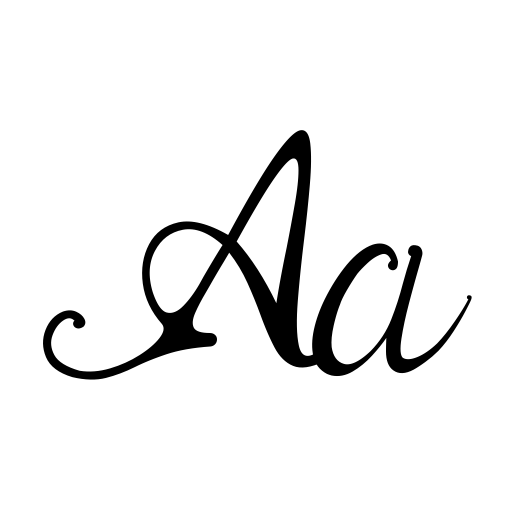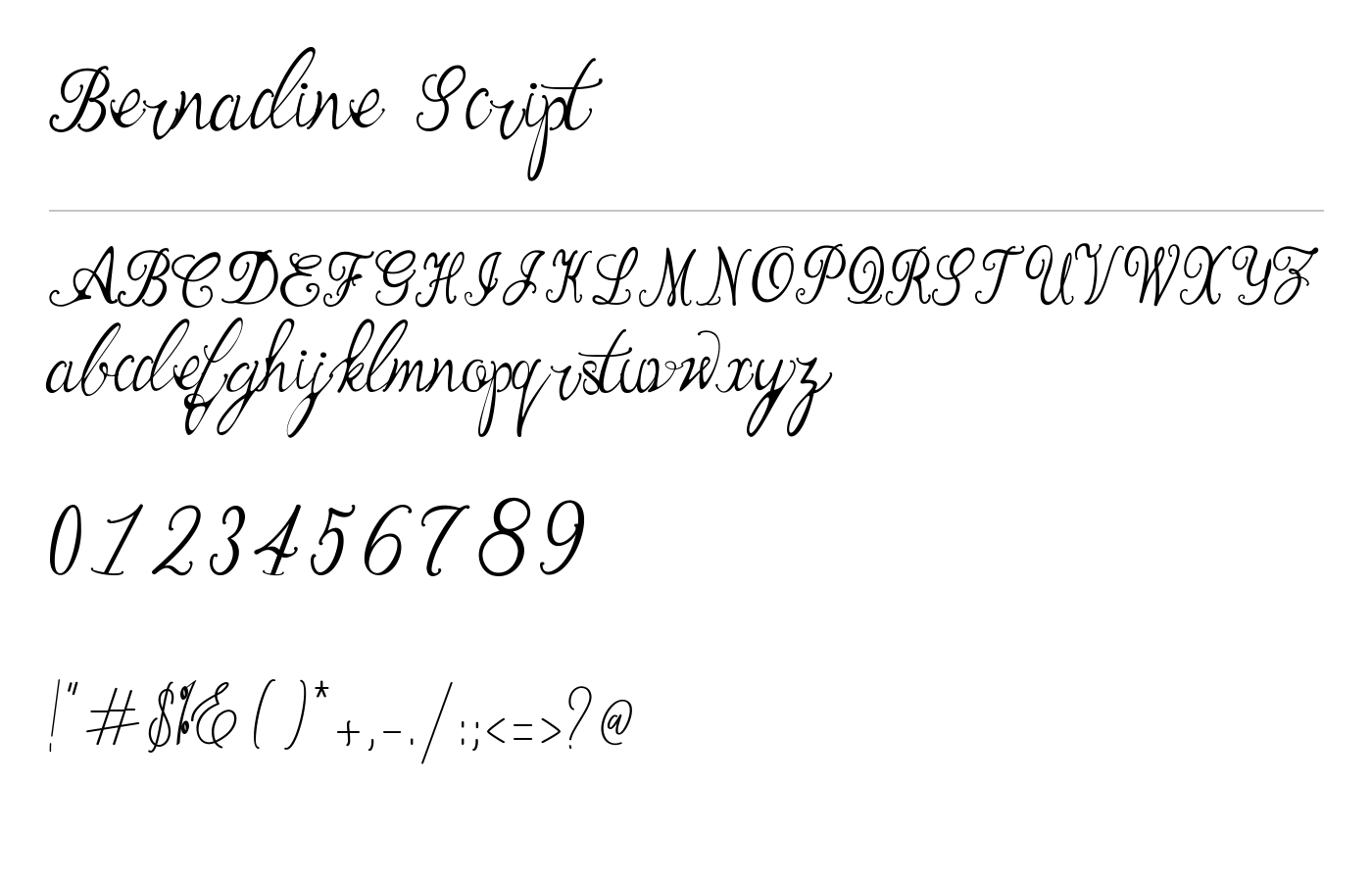
Bernadine Script is a delicate, elegant script font that features fine, flowing strokes and decorative curves, giving it a refined and graceful appearance. Its light weight and slightly condensed letterforms make it perfect for sophisticated branding, wedding invitations, and stylish editorial designs where a touch of luxury and femininity is desired. This font’s classic script style combines readability with ornamental flair, making it ideal for headlines and decorative text that seeks to convey charm and elegance.
Bernadine Script Font